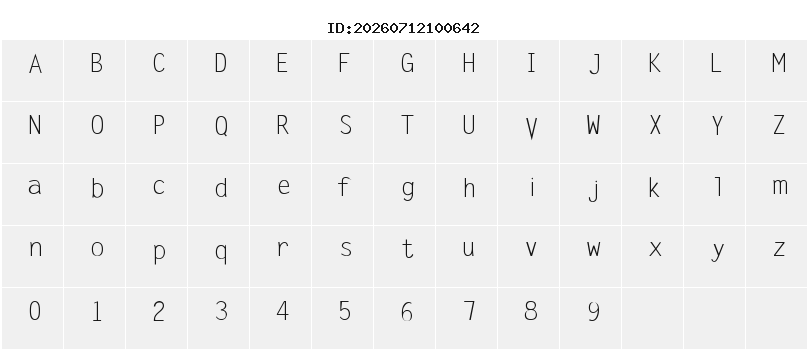
AI神笔苏超体 Preview
• Font Name: AI神笔苏超体
• Font ID: AIshenbisuchaoti
• Full Font Name: AI神笔苏超体
• PostScript Name: AIshenbisuchaoti
• Character Count: 7485
• Description: 由AI生成的字体
About AI神笔苏超体.ttf
AI神笔苏超体.ttf is a modern, elegant sans-serif font designed for ultimate readability and visual harmony. Perfect for branding, headlines, web design, and print materials.